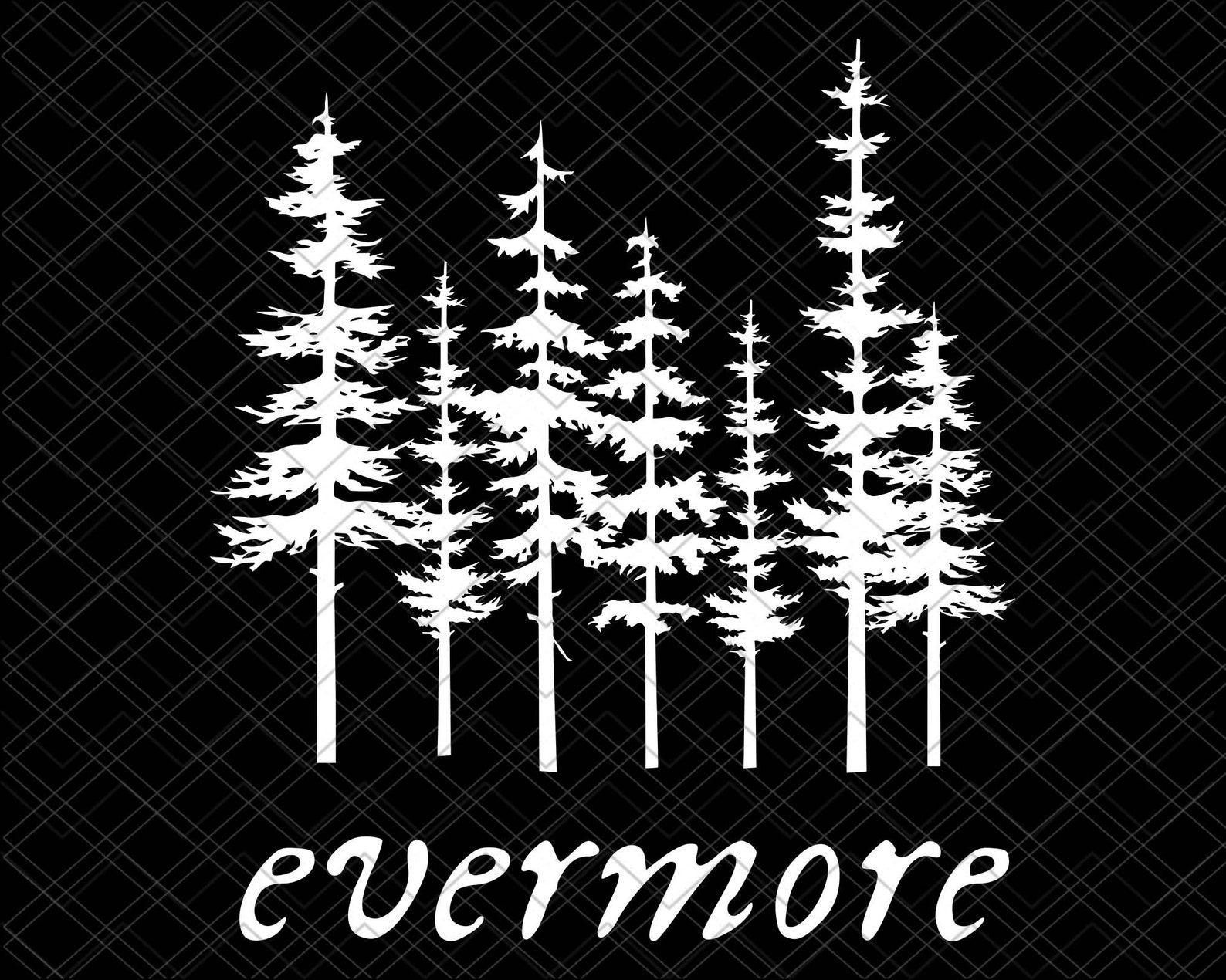
Evermore Font Taylor Swift
Evermore Font Taylor Swift - Web download the im fell dw pica font based on the title logo from the taylor swift album 'evermore'. The evermore is a new font family, which contains thin, regular and bold. This font is a free font by igino. Evermore is the ninth album by american. Web taylor swift also used this font for her folklore album cover. Evermore (album) font free download.
The evermore is a new font family, which contains thin, regular and bold. Evermore (album) font free download. This font is a free font by igino. Evermore is the ninth album by american. Web taylor swift also used this font for her folklore album cover. Web download the im fell dw pica font based on the title logo from the taylor swift album 'evermore'.
Evermore is the ninth album by american. This font is a free font by igino. Web download the im fell dw pica font based on the title logo from the taylor swift album 'evermore'. The evermore is a new font family, which contains thin, regular and bold. Web taylor swift also used this font for her folklore album cover. Evermore (album) font free download.
The evermore is a new font family, which contains thin, regular and bold. Web download the im fell dw pica font based on the title logo from the taylor swift album 'evermore'. This font is a free font by igino. Web taylor swift also used this font for her folklore album cover. Evermore (album) font free download.
Evermore is the ninth album by american. Evermore (album) font free download. Web download the im fell dw pica font based on the title logo from the taylor swift album 'evermore'. Web taylor swift also used this font for her folklore album cover. This font is a free font by igino.
Web taylor swift also used this font for her folklore album cover. Evermore (album) font free download. Evermore is the ninth album by american. This font is a free font by igino. Web download the im fell dw pica font based on the title logo from the taylor swift album 'evermore'.
Evermore (album) font free download. Evermore is the ninth album by american. This font is a free font by igino. Web taylor swift also used this font for her folklore album cover. The evermore is a new font family, which contains thin, regular and bold.
The evermore is a new font family, which contains thin, regular and bold. This font is a free font by igino. Evermore (album) font free download. Web taylor swift also used this font for her folklore album cover. Web download the im fell dw pica font based on the title logo from the taylor swift album 'evermore'.
Web download the im fell dw pica font based on the title logo from the taylor swift album 'evermore'. Evermore (album) font free download. Web taylor swift also used this font for her folklore album cover. The evermore is a new font family, which contains thin, regular and bold. This font is a free font by igino.
This font is a free font by igino. Web download the im fell dw pica font based on the title logo from the taylor swift album 'evermore'. The evermore is a new font family, which contains thin, regular and bold. Web taylor swift also used this font for her folklore album cover. Evermore (album) font free download.
Web taylor swift also used this font for her folklore album cover. The evermore is a new font family, which contains thin, regular and bold. This font is a free font by igino. Web download the im fell dw pica font based on the title logo from the taylor swift album 'evermore'. Evermore is the ninth album by american.
Evermore (album) Font
Evermore (album) font free download. Web taylor swift also used this font for her folklore album cover. Evermore is the ninth album by american. This font is a free font by igino. Web download the im fell dw pica font based on the title logo from the taylor swift album 'evermore'.
Evermore (album) font free download. This font is a free font by igino. Web download the im fell dw pica font based on the title logo from the taylor swift album 'evermore'. The evermore is a new font family, which contains thin, regular and bold. Evermore is the ninth album by american.
This Font Is A Free Font By Igino.
The evermore is a new font family, which contains thin, regular and bold. Web taylor swift also used this font for her folklore album cover. Evermore is the ninth album by american. Web download the im fell dw pica font based on the title logo from the taylor swift album 'evermore'.